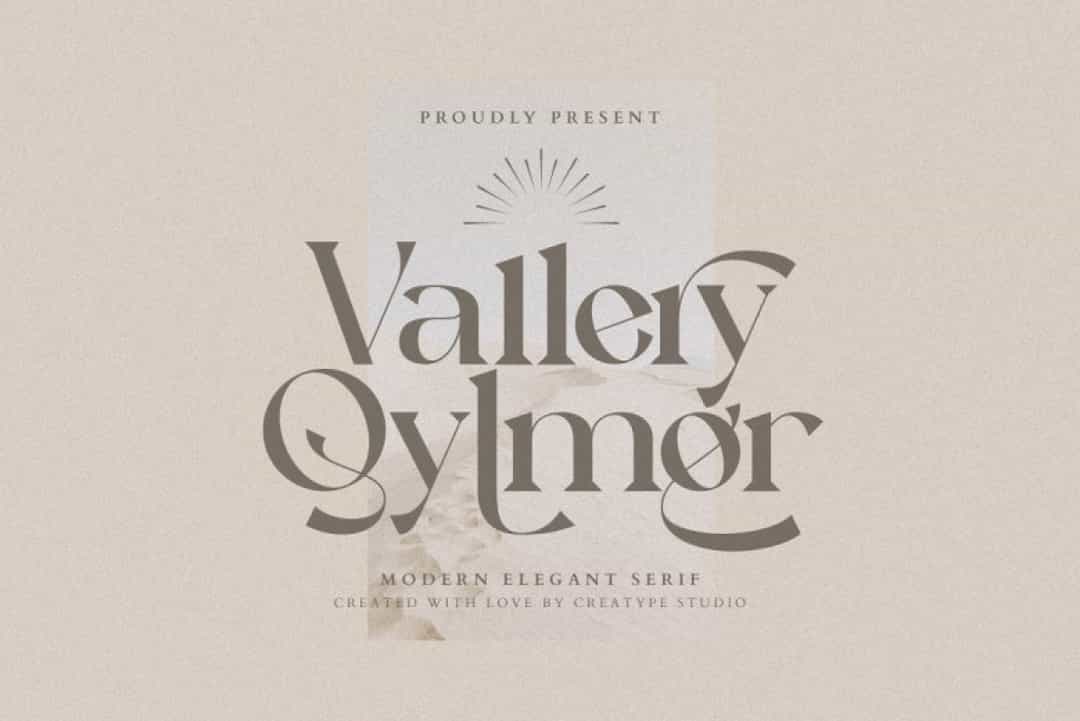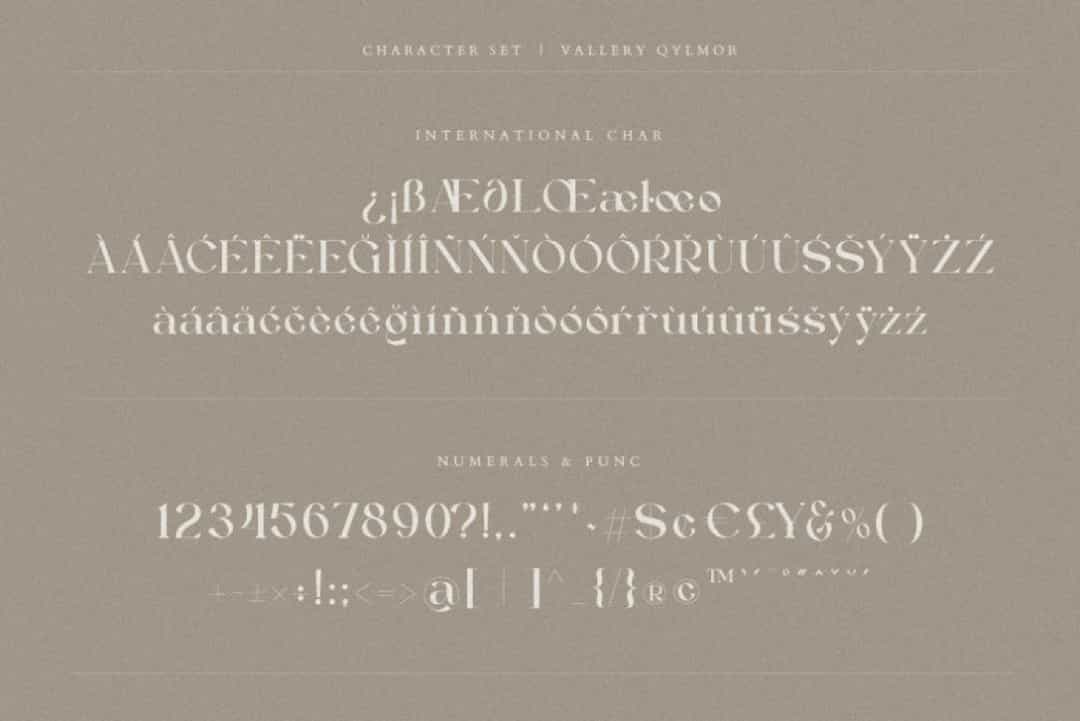
Vallery Qylmor is a contemporary stylish serif font. Its simple, sleek, and elegant style make it the ideal choice for all of your projects large or small. Crafted by skilled designers, this font will help make them shine brightly.